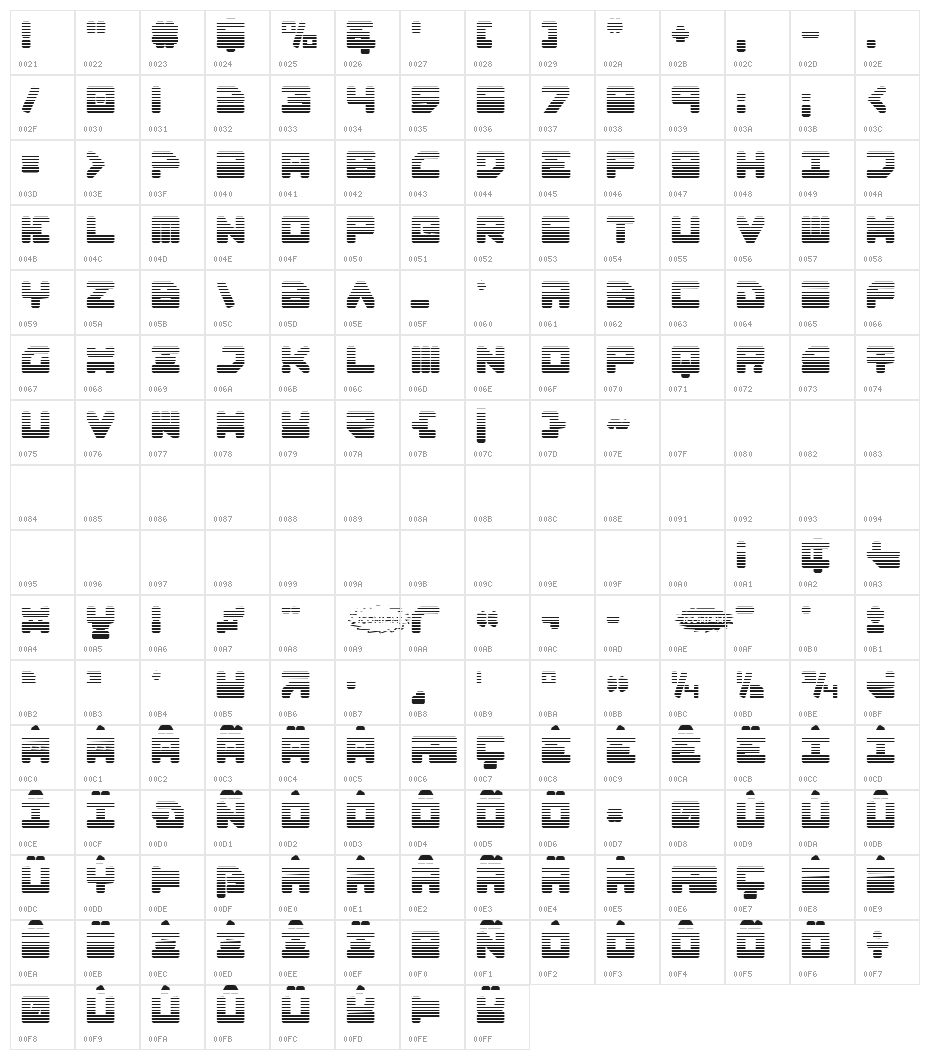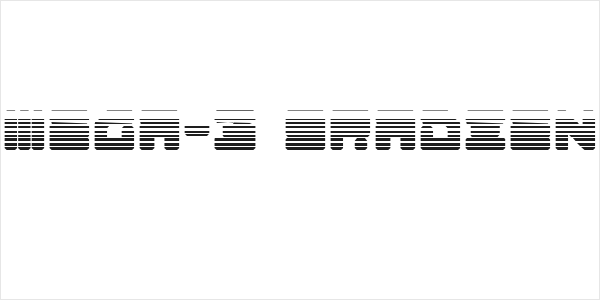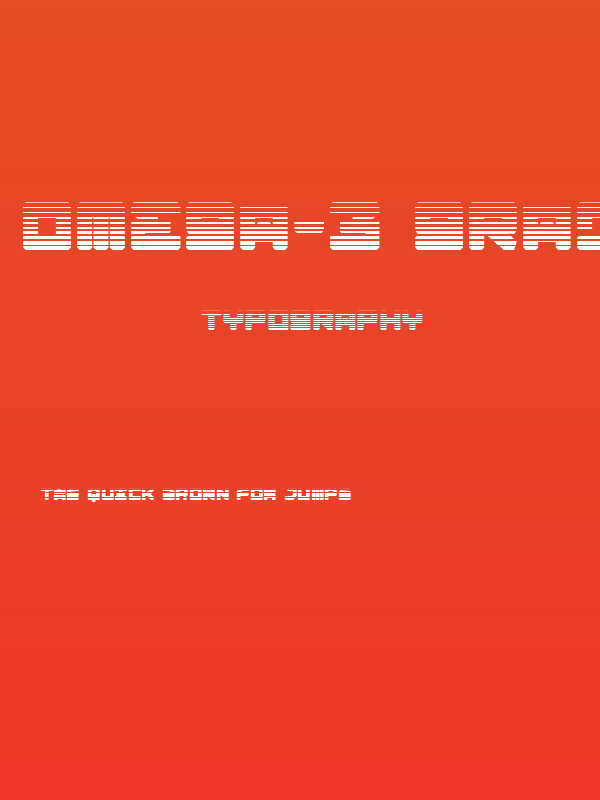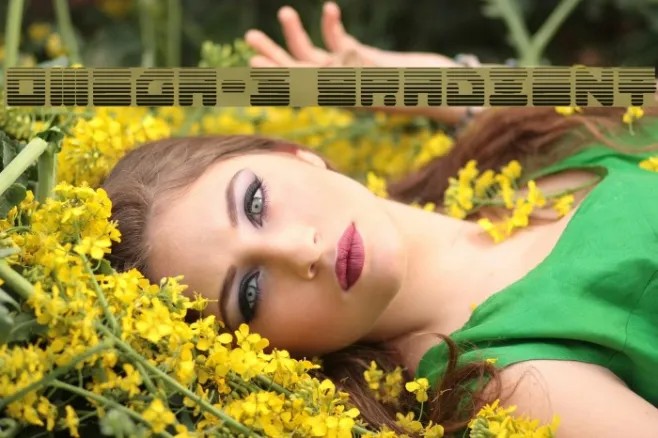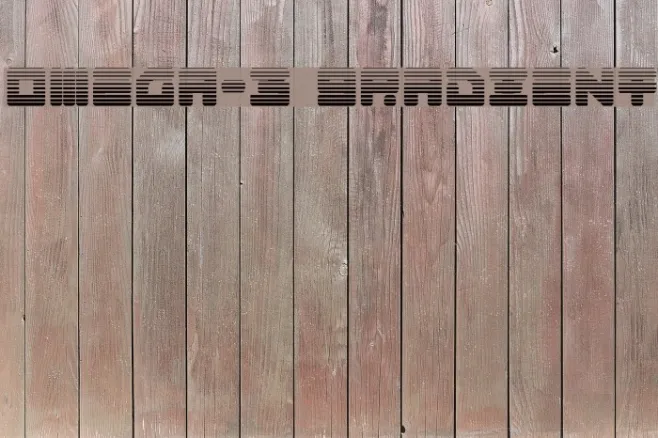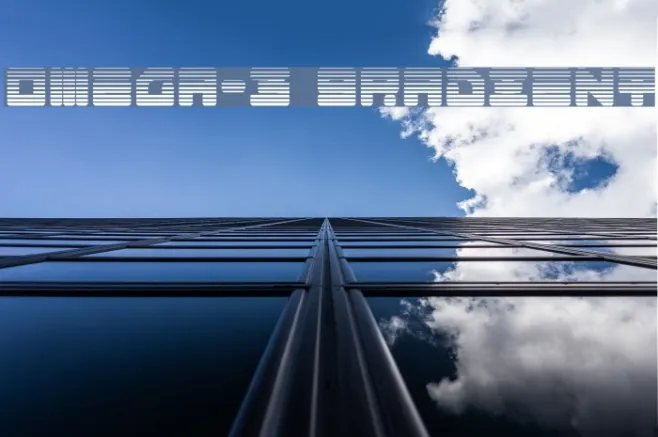
Omega-3 Gradient Font
Omega-3 Gradient Description
This font features a unique, futuristic design characterized by horizontal lines that create a gradient effect across each character. The bold, geometric shapes are consistent throughout the alphabet, numbers, and special characters, giving it a cohesive and modern appearance. The font's distinct style is achieved through the use of parallel lines that vary in thickness, creating an illusion of depth and movement. The uppercase and lowercase letters maintain a uniform width, while the numbers and symbols seamlessly integrate into the overall design. This font is ideal for projects that require a bold, eye-catching aesthetic.